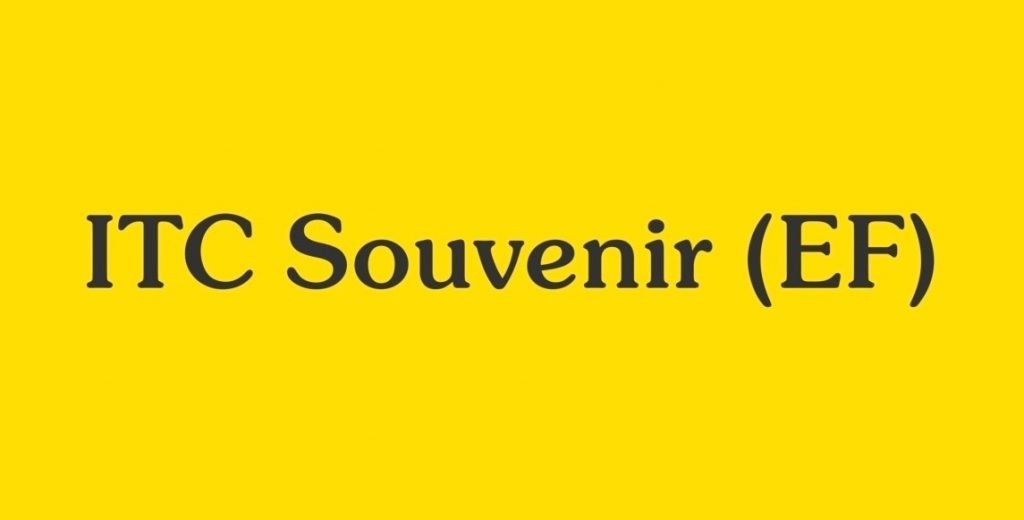
This Font family is being designed by Morris Fuller Benton for the American style Founders in the year 1914. This typeface has different and smooth faces and
Here is the ITC Souvenir Font, a serif typeface designed by Morris Fuller Benton. This font family is commonly used for creating ebook covers and wedding cards.
This Font family is being designed by Morris Fuller Benton for the American style Founders in the year 1914. This typeface has different and smooth faces and styles than all other serif typefaces just like vegan style font also it doesn't contain any contrast between thick and thin strokes.
ITC Souvenir the serif typeface that was designed by Morris Fuller Benton in the year 1914.
The Kabel font is very close to the ITC Souvenir font.